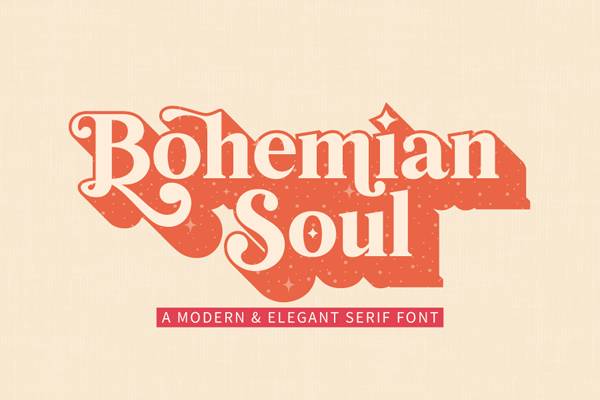
Boho fonts are sometimes referred to as hippie-inspired fonts. The official origin of boho fonts is often disputed. One origin story says that this font style originated in the 19th century in France just after the end of the French revolution. Another says that it came about during the 60s as a hippie-inspired writing style. But no matter where this style comes from it's hard to find a more iconic font style. Boho fonts have been seen on everything from signs and posters to invitations and even website logos. Our boho font generator tool now gives you the power to create your very own boho inspired image or graphic.